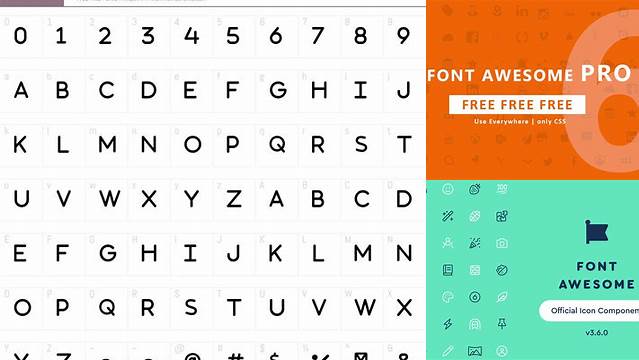
Font Awesome 6.6 Pro: Free Download Guide
Understanding Font Awesome 6.6 Pro
Before we get started, let's clarify what Font Awesome 6.6 Pro actually is. It's a massive library of scalable vector icons and logos. Unlike regular images, these icons can be resized without losing quality, making them perfect for websites, apps, and print designs. The "Pro" version unlocks thousands of additional icons and features compared to the free version.
Font Awesome has become an essential tool for web developers and designers. Its consistent style and easy implementation save tons of time and effort. The extensive library covers virtually every category you can imagine – from basic UI elements to niche industry symbols. This makes it easy to find the perfect icon for any project, ensuring a professional and polished look. Furthermore, the vector-based nature of Font Awesome icons means they look sharp on any screen, regardless of resolution. The Pro version takes this a step further by offering even more customization options and exclusive icons.
The convenience and versatility of Font Awesome have led to its widespread adoption. Whether you're building a simple blog or a complex web application, Font Awesome can help you create a visually appealing and user-friendly interface. By using Font Awesome, you can avoid the hassle of creating your own icons or sourcing them from various websites. The consistent styling and easy integration make it a valuable asset for any design project. Understanding the core features and benefits of Font Awesome is crucial before diving into the specifics of version 6.6 Pro.
Consider Font Awesome as a toolbox filled with visual elements ready to be implemented for your next awesome project.
Is a Truly "Free" Download Possible?
Exploring Official Font Awesome Options
Font Awesome offers a variety of subscription plans to cater to different needs and budgets. The free plan provides access to a limited set of icons, while the Pro plans offer a wider range of icons, advanced features, and priority support. By carefully evaluating your project requirements and budget, you can choose the plan that best suits your needs. The official website provides detailed information about each plan, including pricing, features, and limitations.
Free Trial Possibilities
Keep an eye out for free trial offers. These can be a great way to test out Font Awesome 6.6 Pro and see if it meets your needs before committing to a paid subscription. The free trial usually gives you full access to all the features and icons for a limited period. This allows you to explore the library, experiment with different styles, and integrate the icons into your projects. If you find that Font Awesome 6.6 Pro is a valuable asset, you can then choose to subscribe to a paid plan.
Font Awesome frequently runs promotions and special offers, so be sure to check their website regularly for updates. These promotions might include discounts on subscriptions, bundled deals, or extended free trials. By taking advantage of these offers, you can potentially save money on your Font Awesome subscription and get access to the Pro features at a lower cost.
Font Awesome Free Version: A Solid Alternative
Don't underestimate the power of the free version of Font Awesome! It includes a substantial collection of icons that can cover many common use cases. It's a fantastic starting point, especially for personal projects or smaller websites. Plus, it's completely legal and safe to use! You can always upgrade to the Pro version later if your needs grow.
The free version of Font Awesome is a powerful resource for web developers and designers. It includes a wide range of icons that cover various categories, such as basic UI elements, social media icons, and common symbols. These icons can be easily integrated into your projects using CSS or JavaScript. The free version is regularly updated with new icons and features, making it a valuable asset for any design project.
For many projects, the free version of Font Awesome provides sufficient functionality. It allows you to enhance your website or application with visually appealing icons without incurring any costs. If your project requires more specialized icons or advanced features, you can always consider upgrading to the Pro version. However, for basic use cases, the free version is an excellent choice.
Open-Source Icon Libraries
Besides Font Awesome, numerous other open-source icon libraries exist. Libraries like Material Design Icons, Feather Icons, and Ionicons offer a wide variety of high-quality icons, often with different design styles. These libraries are typically free to use, even in commercial projects. Exploring these alternatives can provide you with a broader selection of icons and potentially save you money.
Open-source icon libraries offer several advantages over commercial alternatives. Firstly, they are typically free to use, which can be a significant cost saving for small businesses and individual developers. Secondly, they are often highly customizable, allowing you to tailor the icons to your specific design requirements. Thirdly, they are often supported by a large and active community, which can provide assistance and guidance if you encounter any issues. So it’s definitely worth looking into open-source icon libraries if you are looking to save costs.
DIY: Creating Your Own Icons
If you're feeling creative, why not try creating your own icons? Software like Adobe Illustrator or Inkscape (a free, open-source alternative) can be used to design custom icons. This gives you complete control over the look and feel of your icons, ensuring they perfectly match your brand. While it takes more time and effort, the result can be a truly unique and personalized design.
Creating your own icons allows you to tailor them to your specific needs and branding. You can ensure that the icons perfectly match your website or application's style and aesthetic. This level of customization is often not possible with pre-made icon libraries. Additionally, creating your own icons can be a rewarding and creative process, allowing you to express your artistic skills.
Creating your own icons can also help you improve your design skills and understanding of visual communication. By designing icons from scratch, you'll learn about the principles of icon design, such as simplicity, clarity, and consistency. This knowledge can be valuable in other areas of design and development.
Checking for Bundled Deals
Sometimes, Font Awesome is bundled with other software or services that you might already be using or considering purchasing. For example, some website builders or design tools include Font Awesome Pro as part of their subscription. Keep an eye out for these bundled deals, as they can offer significant savings.
Bundled deals can be an excellent way to save money on Font Awesome 6.6 Pro. By purchasing a software package that includes Font Awesome, you can avoid paying for it separately. This can be particularly beneficial if you need the other software in the bundle anyway. Always compare the cost of the bundled deal with the cost of purchasing Font Awesome and the other software separately to ensure you're getting the best value.
Educational Licenses
If you're a student or educator, you might be eligible for an educational license of Font Awesome Pro. These licenses are typically offered at a discounted rate or even free of charge. Check Font Awesome's website or contact their support team to inquire about educational licensing options.
Educational licenses are designed to support students and educators by providing them with access to Font Awesome Pro at a reduced cost. This allows them to use the icons in their educational projects and research without having to pay the full price. Educational licenses are a great way to make Font Awesome Pro more accessible to those who are learning and teaching design and development.
Font Awesome Alternatives
Iconify
Iconify is a free and open-source icon framework offering a vast collection of icons from various icon sets. It's a versatile alternative to Font Awesome, especially if you need a diverse range of styles.
Material Design Icons
Material Design Icons provides icons designed following Google's Material Design guidelines. These icons are clean, modern, and suitable for a wide range of applications.
Feather Icons
Feather Icons offers a set of simple and elegant open-source icons. These icons are designed to be lightweight and customizable, making them a great choice for minimalist designs.
IcoMoon
IcoMoon offers both a free and paid version, allowing you to create custom icon fonts or SVG sprites. It’s a powerful tool for managing and customizing icons.
Streamline Icons
Streamline Icons provides a large library of professionally designed icons with a consistent style. It's a great option if you need high-quality icons for commercial projects.
Before using any font or icon, it's crucial to understand the license associated with it. The license dictates how you can use the resource, whether it's for personal or commercial projects, and whether you need to give attribution. Make sure you comply with the terms of the license to avoid any legal issues.
Different licenses have different requirements. Some licenses allow you to use the resource for free, even in commercial projects, as long as you give attribution to the author. Other licenses require you to purchase a commercial license if you want to use the resource in a commercial project. Always read the license carefully to understand your rights and obligations.
Font Awesome CDN
Font Awesome CDN is a content delivery network that allows you to easily include Font Awesome icons in your web projects. Instead of hosting the icon files yourself, you can link to them on the CDN. This can improve your website's performance by reducing the load on your server.
Using a CDN can also improve your website's security. By hosting the icon files on a CDN, you can protect your server from potential attacks. The CDN also ensures that your website always has the latest version of Font Awesome, so you can take advantage of new features and bug fixes.
Font Awesome Desktop
Font Awesome Desktop is an application that allows you to browse and search for Font Awesome icons on your computer. It's a convenient way to find the perfect icon for your project without having to visit the Font Awesome website.
With Font Awesome Desktop, you can also customize the icons to match your brand. You can change the color, size, and style of the icons to create a unique look for your website or application. This level of customization is often not possible with other icon libraries.
Font Awesome API
Font Awesome API provides a way to programmatically access Font Awesome icons. This can be useful if you need to dynamically generate icons in your application.
The API allows you to retrieve icon data, such as the SVG code, and use it in your application. This can be useful for creating custom icon fonts or integrating Font Awesome with other tools and services. The API also provides access to other Font Awesome features, such as the ability to search for icons and retrieve information about them.
Font Awesome React
Font Awesome React is a component library that allows you to easily use Font Awesome icons in your React applications. It provides a simple and convenient way to add icons to your components.
The component library includes pre-built components for each Font Awesome icon, making it easy to add them to your React application. You can also customize the icons using props, such as the size, color, and style. This allows you to create a consistent look and feel for your application.
Font Awesome Vue
Font Awesome Vue is a component library that allows you to easily use Font Awesome icons in your Vue applications. It provides a simple and convenient way to add icons to your components.
The component library includes pre-built components for each Font Awesome icon, making it easy to add them to your Vue application. You can also customize the icons using props, such as the size, color, and style. This allows you to create a consistent look and feel for your application.
Font Awesome Angular
Font Awesome Angular is a component library that allows you to easily use Font Awesome icons in your Angular applications. It provides a simple and convenient way to add icons to your components.
The component library includes pre-built components for each Font Awesome icon, making it easy to add them to your Angular application. You can also customize the icons using inputs, such as the size, color, and style. This allows you to create a consistent look and feel for your application.
Font Awesome SVG
Font Awesome SVG are scalable vector graphics that can be used in websites, apps, and other projects. SVG icons are resolution-independent, meaning they look sharp on any screen, regardless of resolution.
Using SVG icons can improve your website's performance. SVG files are typically smaller than raster images, such as PNG or JPEG files. This can reduce the load time of your website and improve the user experience. SVG icons can also be animated using CSS or JavaScript, allowing you to create interactive and engaging designs.
Font Awesome CSS
Font Awesome CSS provides a way to style Font Awesome icons using CSS. You can use CSS to change the color, size, and style of the icons.
Using CSS to style Font Awesome icons can help you create a consistent look and feel for your website or application. You can use CSS classes to apply styles to multiple icons at once, making it easy to maintain a consistent design.
Font Awesome JavaScript
Font Awesome JavaScript provides a way to dynamically add Font Awesome icons to your website or application using JavaScript. This can be useful if you need to add icons based on user interactions or other dynamic data.
The JavaScript library allows you to add icons to your website or application without having to manually insert the HTML code for each icon. This can save you time and effort, especially if you need to add a lot of icons.
Font Awesome Animation
Font Awesome Animation provides a way to animate Font Awesome icons using CSS or JavaScript. This can add visual interest to your website or application and make it more engaging.
You can use CSS animations to create simple animations, such as rotating or fading icons. You can also use JavaScript to create more complex animations, such as bouncing or pulsating icons. Experiment with different animations to find the ones that best suit your design.
Font Awesome Customization
Font Awesome Customization allows you to customize the appearance of Font Awesome icons. You can change the color, size, style, and other properties of the icons to match your brand.
Customizing Font Awesome icons can help you create a unique look and feel for your website or application. You can use CSS to style the icons, or you can use the Font Awesome API to programmatically customize the icons.
Font Awesome Accessibility
Font Awesome Accessibility ensures that your Font Awesome icons are accessible to users with disabilities. This includes providing alternative text for the icons and ensuring that the icons are properly labeled.
Making your icons accessible is important for ensuring that your website or application is usable by everyone. Alternative text provides a description of the icon for users who cannot see it, such as users with visual impairments. Proper labeling helps users understand the purpose of the icon.
Font Awesome Performance
Font Awesome Performance ensures that your Font Awesome icons are optimized for performance. This includes using the smallest possible icon files and using a CDN to deliver the icons.
Optimizing your icons for performance can improve your website's loading speed and improve the user experience. Using the smallest possible icon files reduces the amount of data that needs to be downloaded, and using a CDN ensures that the icons are delivered quickly to users around the world.